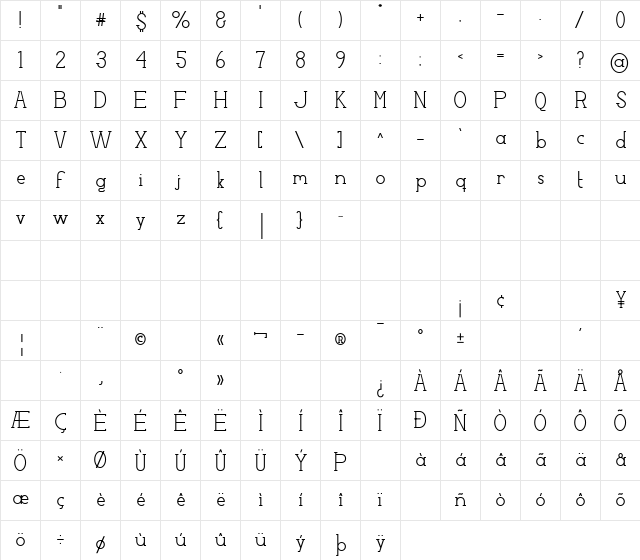
Factory LJDS Regular
| Foundry | LJ Design Studios |
| Designer | Luis Jaramillo, Gustavo P鲥z |
Design Context for Factory LJDS Typeface
Factory LJDS takes a measured approach to typography — its balanced proportions and neutral character make it a reliable workhorse for both digital and print work.